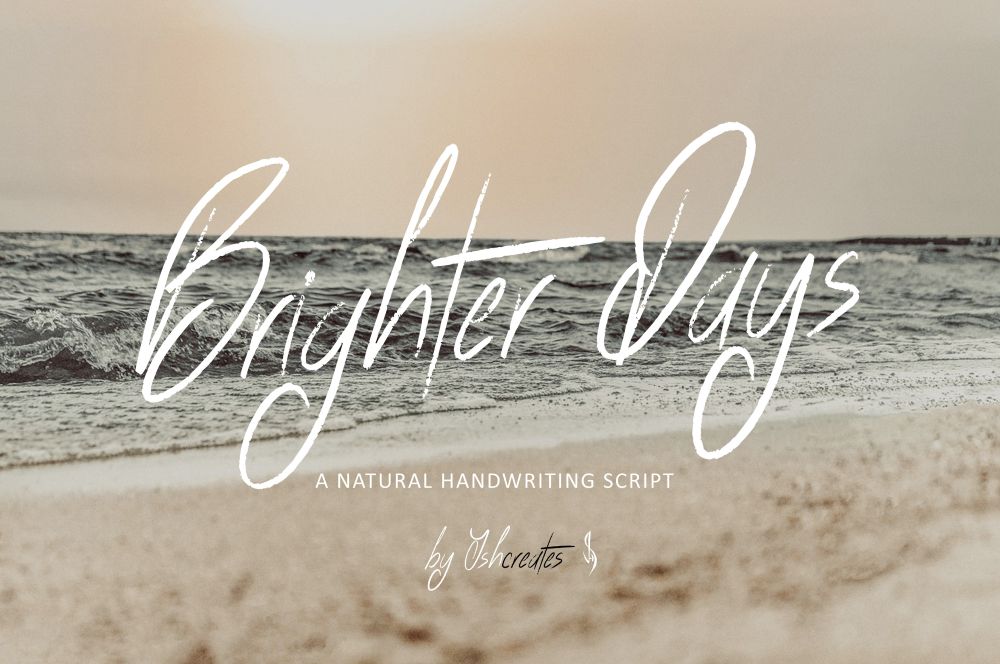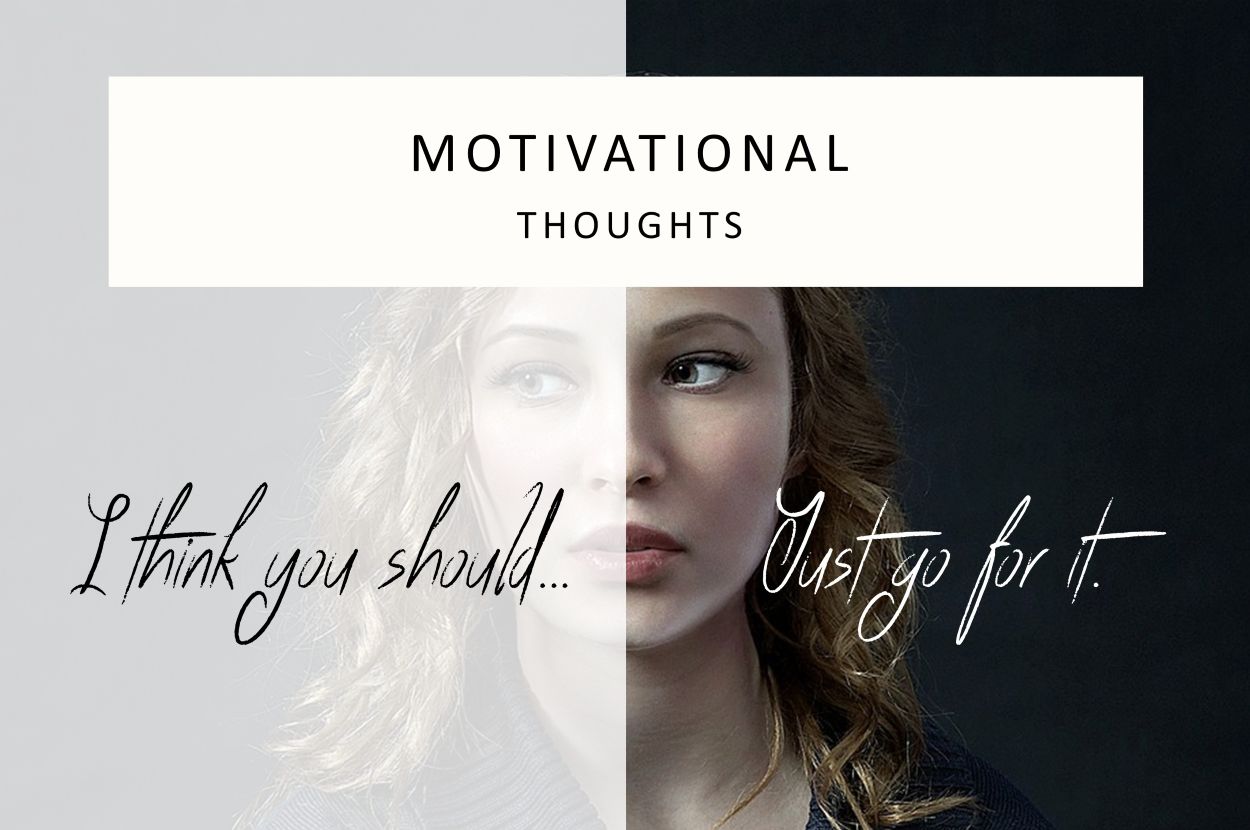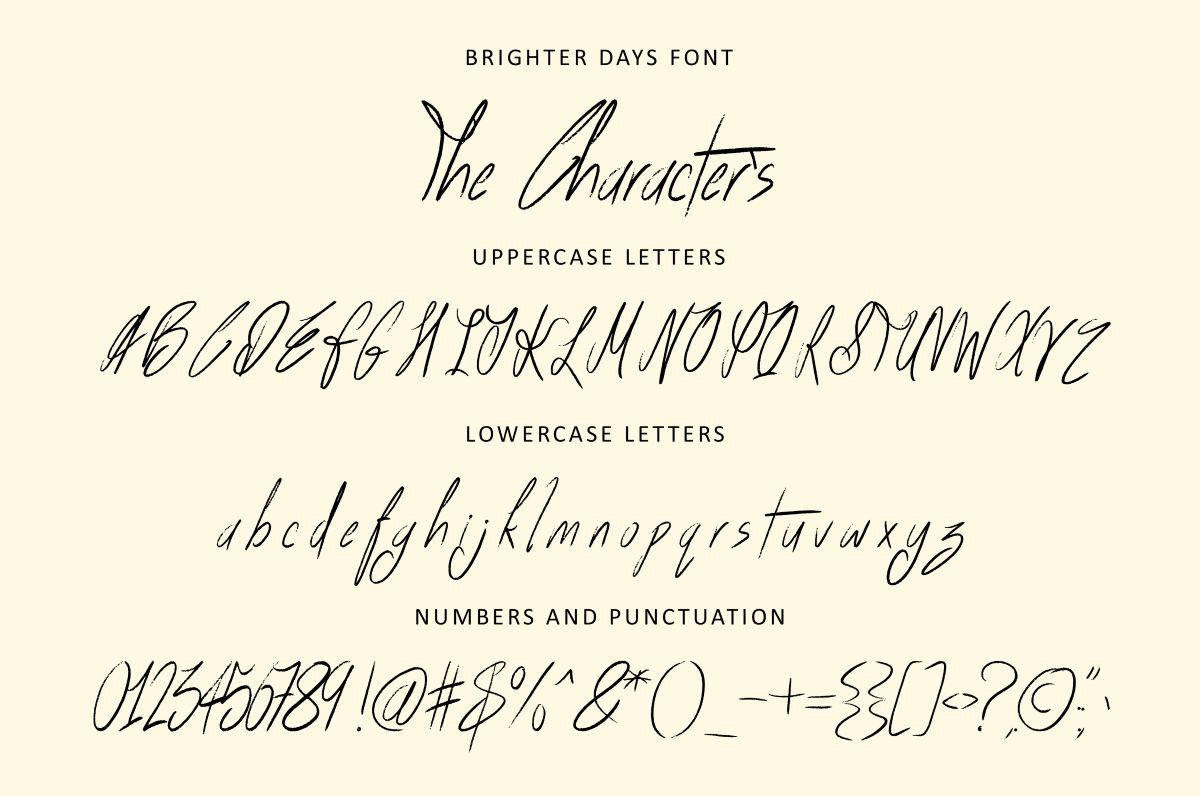
Brighter Days Font
Handwritten brush font. “Brighter Days”. Perfect for advertising and display purposes, including banners, book covers, shirts, posters, logos and much more!
Font includes all upper and lowercase letters, numbers, characters and punctuation.